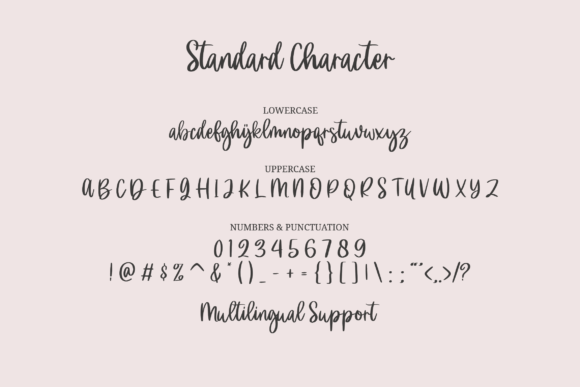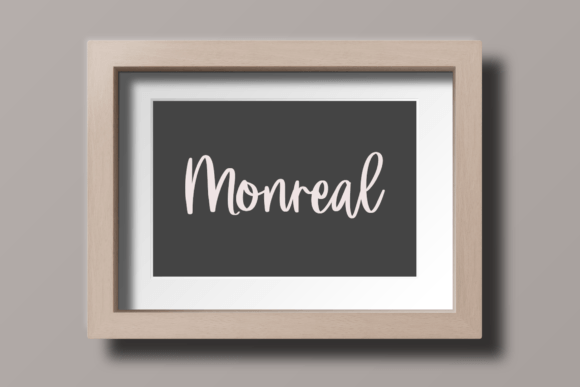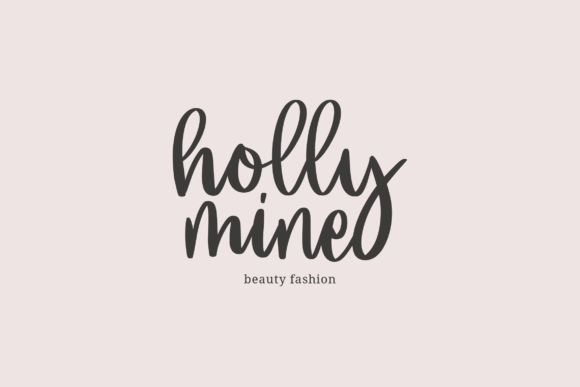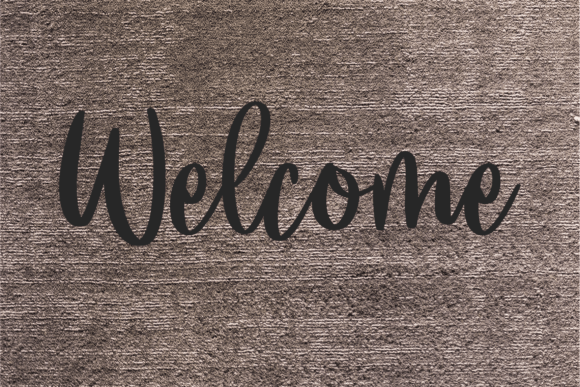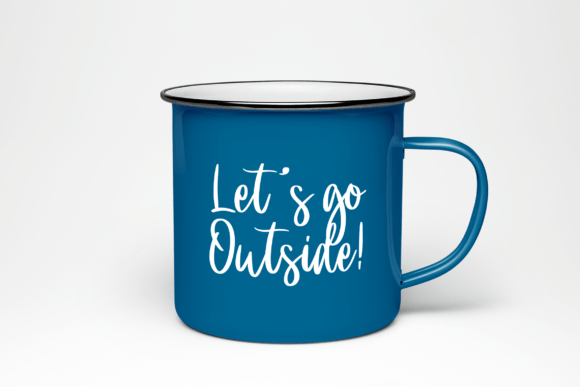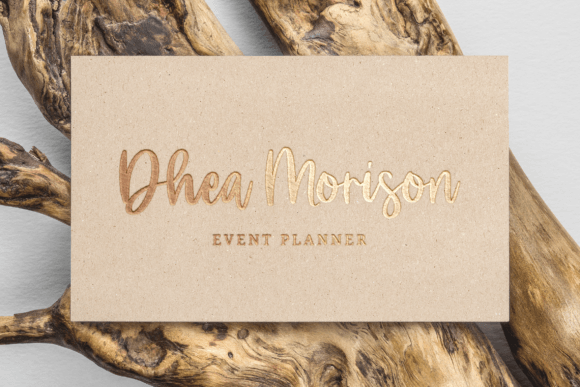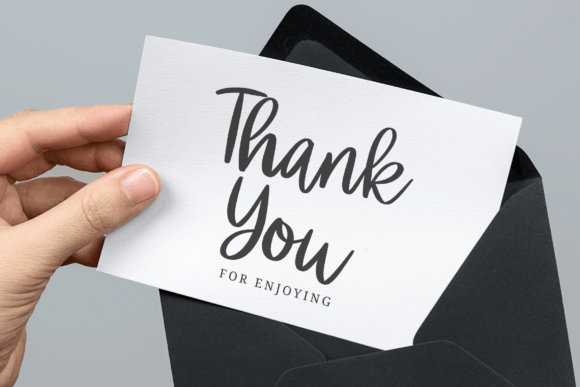
Silvermades Font
About Silvermades Font
**”Silvermades”** is a beautiful and romantic script font that adds an elegant and handwritten touch to your design projects. With its stunning and versatile style, this font is a perfect choice for various creative applications, making it ideal for wedding invitations, thank you cards, quotes, greeting cards, logos, business cards, and more.
The romantic and handwritten nature of **”Silvermades”** infuses your designs with a sense of charm and elegance. Whether you’re working on wedding materials, branding, quotes, or any other creative project, this font brings a lovely and personal feel to your creations.
In wedding invitations, **”Silvermades”** creates a romantic and sophisticated atmosphere. The font’s elegant script style adds a touch of timeless beauty to your invitations, making them truly special for the occasion.
Thank you cards designed with **”Silvermades”** have a heartfelt and genuine quality. The font’s lovely appearance enhances your messages, conveying appreciation with grace and style.
Quotes and inspirational messages come to life with the elegant and romantic style of **”Silvermades.”** This font adds a touch of beauty and charm to your text, making it more visually appealing and engaging.
The wide range of applications for **”Silvermades”** extends to logos, business cards, greeting cards, and various creative projects. Its versatility and elegant charm make it suitable for different design contexts.
As a PUA encoded font, **”Silvermades”** offers easy access to all of its glyphs and swashes, providing you with creative flexibility and convenience in your design work.
In summary, **”Silvermades”** is a beautiful and romantic script font that elevates your design projects with elegance and charm. Its versatility and lovely handwritten style make it a delightful choice for wedding invitations, thank you cards, quotes, logos, business cards, and any project where a romantic and elegant touch is desired.